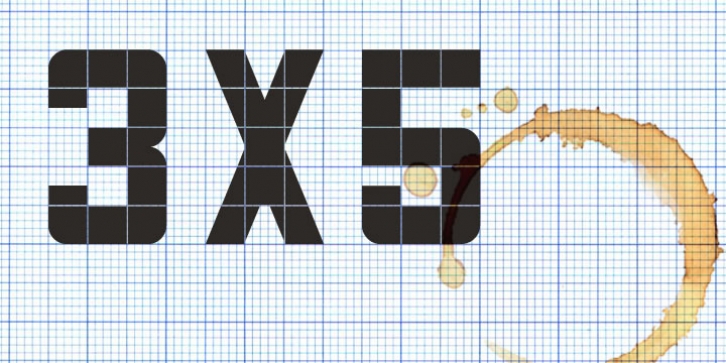
Based on the squared lettering used for art folders at Joseph Eastham High School in Salford England, most letters being three squares wide and all of them five squares tall. In memory of Tony Cavanagh, an inspirational art teacher. 3×5 also includes a handy Outline version.